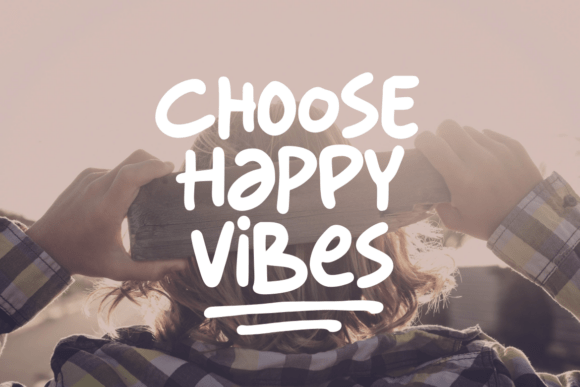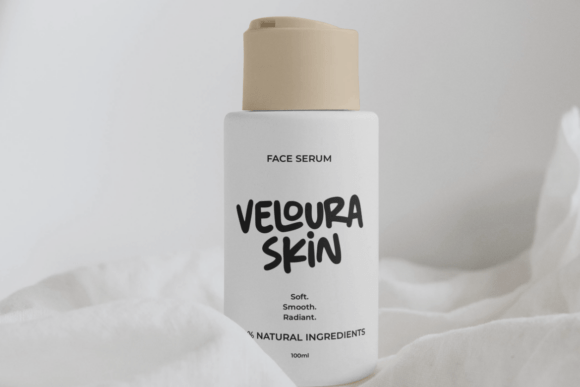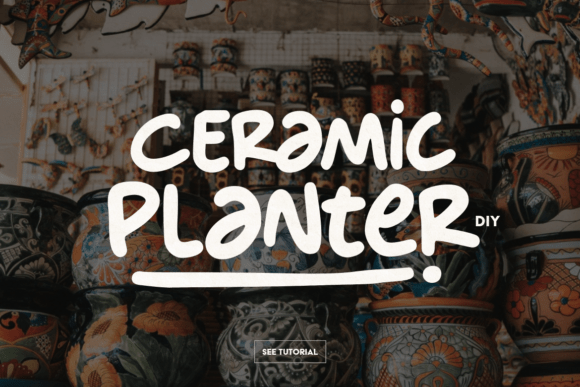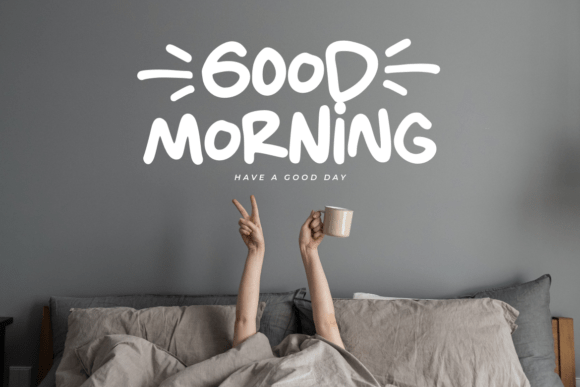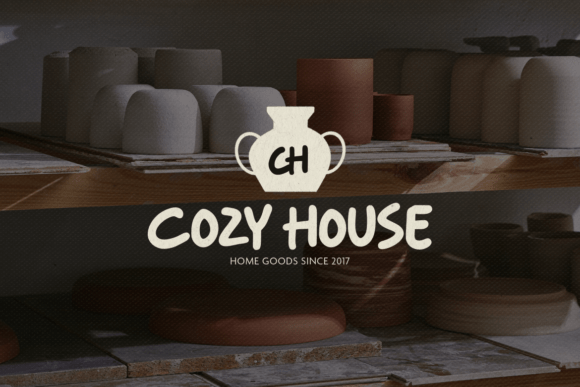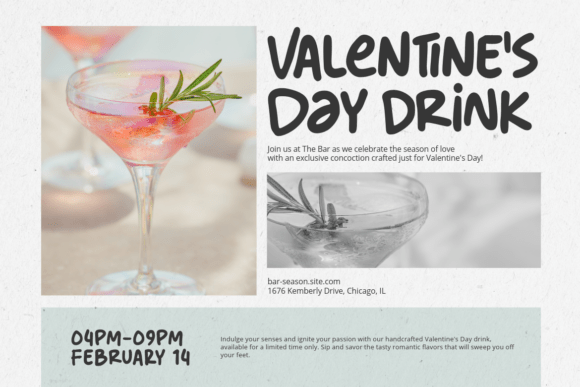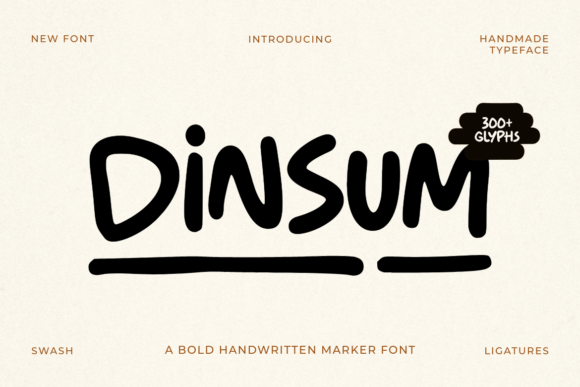
Introducing Dinsum Font: The Ultimate Bold Handwritten Marker Font
Are you tired of using the same old fonts for your designs? Look no further! Dinsum Font is here to revolutionize your typography with its bold, handwritten marker style that’s both playful and authentic. With its thick smooth strokes, natural curves, stylish ligatures, and creative swashes, Dinsum is the perfect font for creating eye-catching text with a fun and modern personality.
What Makes Dinsum Font So Special?
Dinsum Font is carefully crafted for designers, creators, and branding projects, making it an ideal choice for a wide range of applications. Its bold marker look gives your text a strong visual impact while still feeling friendly and approachable. Whether you’re working on logos, packaging, social media, posters, children’s designs, café branding, stickers, merchandise, YouTube thumbnails, or more, Dinsum works beautifully to make your designs stand out.
Key Features of Dinsum Font
- Bold Handwritten Style: Dinsum’s bold handwritten style is perfect for creating eye-catching typography that’s both fun and modern.
- Thick Smooth Strokes: The font features thick smooth strokes that give your text a strong visual impact.
- Natural Curves: Dinsum’s natural curves make it feel friendly and approachable.
- Stylish Ligatures: The font includes stylish ligatures that add a touch of elegance to your designs.
- Creative Swashes: Dinsum’s creative swashes allow you to add a personal touch to your typography.
- Multilingual Support: With over 300 glyphs, Dinsum offers flexibility for both personal and commercial creative projects.
Why Choose Dinsum Font?
- Unique Handwritten Feel: Dinsum’s unique handwritten feel makes every design look more expressive, trendy, and memorable.
- Versatility: The font is perfect for a wide range of applications, from logos and packaging to social media and posters.
- High-Quality Design: The font is carefully crafted to ensure high-quality design and attention to detail.
How to Use Dinsum Font
- Experiment with Different Sizes: Dinsum looks great in a variety of sizes, from small to large.
- Play with Ligatures and Swashes: Add a personal touch to your typography with Dinsum’s stylish ligatures and creative swashes.
- Combine with Other Fonts: Dinsum pairs well with a variety of fonts, so don’t be afraid to experiment.
- Use for Branding and Marketing: Dinsum is perfect for branding and marketing projects, such as logos, packaging, and social media.
In conclusion, Dinsum Font is the ultimate bold handwritten marker font for designers and crafters. With its unique handwritten feel, thick smooth strokes, natural curves, stylish ligatures, and creative swashes, Dinsum is perfect for creating eye-catching typography with a fun and modern personality. Whether you’re working on logos, packaging, social media, or more, Dinsum is the perfect choice for your next design project.